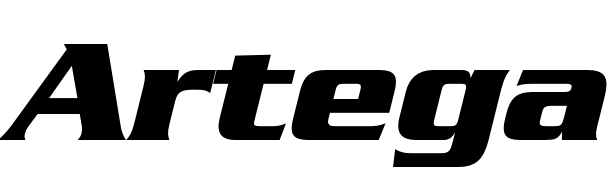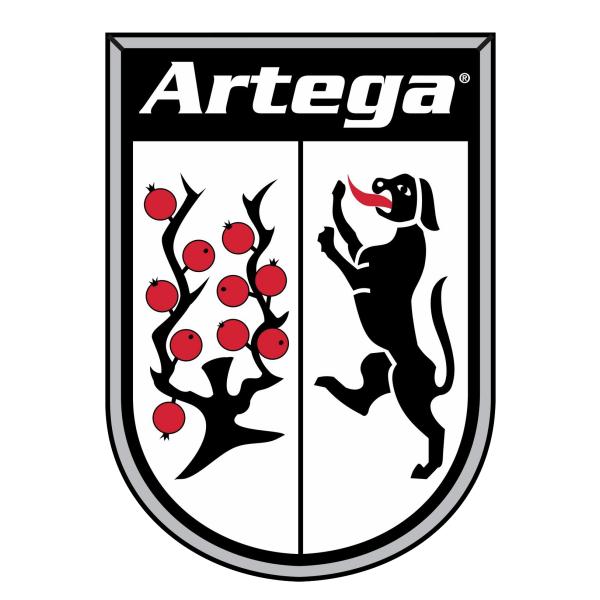
Artega Font
AutomobileArtega Automobil is a German sports car manufacturer founded by Klaus Dieter Frers in 2006 in Delbrück, Germany. In 2007, the company released its first vehicle, a mid-engine sports coupe.
The Serpentine Bold Oblique typeface was most likely used to create the Artega logo. Serpentine is a modern sans-serif display typeface created by Dick Jensen for the Visual Graphics Corporation. You can view more details about it here.